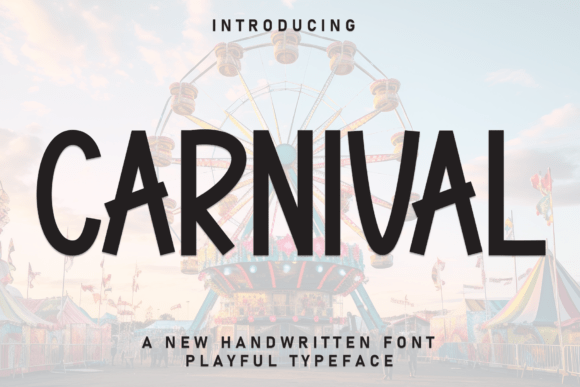
Carnival Font: Adding a Touch of Whimsy and Romance to Your Designs
Immerse yourself in the charming allure of a hand-drawn font that captivates with its enticing blend of amicability and enchantment. With its undercurrent of playfulness, it gracefully weaves into the fabric of any artistic project, bringing joy, romance, and a hint of whimsy. This captivating typographic element is perfect for making your wedding invitations magically inviting or adding a touch of warmth to your greeting cards.
The Unique Charm of Carnival Font
Carnival Font is more than just a typeface; it’s an artistic tool that infuses every project with an exclusive charm, ensuring an elevated elegance from every angle. Its hand-drawn essence brings a level of personality and character that is hard to find in standard fonts. The enticing blend of amicability and enchantment makes it perfect for designers and crafters looking to add a touch of magic to their work.
Wedding invitations and greeting cards are special occasions that call for a unique and personalized touch. Carnival Font is perfect for these types of projects, as it brings a level of romance and whimsy that is sure to captivate the recipient. Imagine sending out wedding invitations that are not only informative but also magically inviting. The Carnival Font adds a touch of warmth and elegance, making the occasion even more special.
Bringing Joy and Whimsy to Your Designs
The undercurrent of playfulness in Carnival Font makes it perfect for designers and crafters who want to bring joy and whimsy to their work. Whether you’re creating a children’s book, a party invitation, or a greeting card, this font is sure to add a touch of magic to your design. The hand-drawn essence of the font gives it a level of personality and character that is hard to find in standard fonts.
Elevate Your Designs with Carnival Font
Carnival Font is not just a typeface; it’s an artistic tool that can elevate your designs to the next level. Its unique charm and enticing blend of amicability and enchantment make it perfect for a wide range of projects, from wedding invitations to greeting cards. With Carnival Font, you can add a touch of elegance and sophistication to your work, making it stand out from the crowd.
Ignite Your Creative Journey
So, ignite your creative journey with an infusion of charismatic allure, courtesy of this unique and enticing font. Whether you’re a designer, crafter, or DIY enthusiast, Carnival Font is sure to inspire you to create something truly special. With its hand-drawn essence and undercurrent of playfulness, this font is perfect for anyone looking to add a touch of magic to their work.
Key Features of Carnival Font
- Hand-drawn font with a unique and enticing charm
- Perfect for wedding invitations, greeting cards, and other special occasions
- Undercurrent of playfulness and whimsy
- Enticing blend of amicability and enchantment
- Elevates designs with a touch of elegance and sophistication
Tips for Using Carnival Font
Here are some tips for using Carnival Font in your designs:
- Use it for headings and titles to add a touch of elegance and sophistication
- Pair it with standard fonts for a unique and contrasting look
- Use it for wedding invitations, greeting cards, and other special occasions
In conclusion, Carnival Font is a captivating typographic element that is perfect for designers and crafters looking to add a touch of magic to their work. Its hand-drawn essence, undercurrent of playfulness, and enticing blend of amicability and enchantment make it perfect for a wide range of projects, from wedding invitations to greeting cards. So, ignite your creative journey with an infusion of charismatic allure, courtesy of this unique and enticing font.